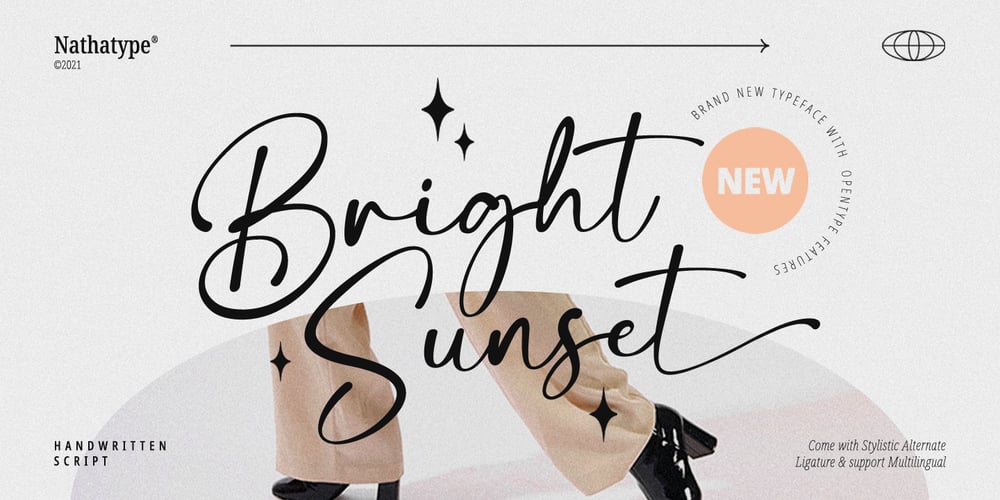
Bright Sunset Font Family was designed by Donis Miftahudin and published by Nathatype. Bright Sunset contains 1 styles and family package options. Have you been looking for a handwritten font? Do you dream of creating headings that stand out and inspire modern and artistic?Bright Sunset-A Handwritten FontBright Sunset is a typeface that combines elegant with modern style. An easy-to-read typeface, with a touch of character, the font is highly adaptable to the modern style, to fit whatever your project needs. Create gorgeous printed quotes, standout packaging, or beautiful t-shirts! Our font always includes Multilingual Support to make your branding reach a global audience. Features: Ligatures Stylistic Sets PUA Encoded Numerals and Punctuation Thank you for downloading premium fonts from Nathatype